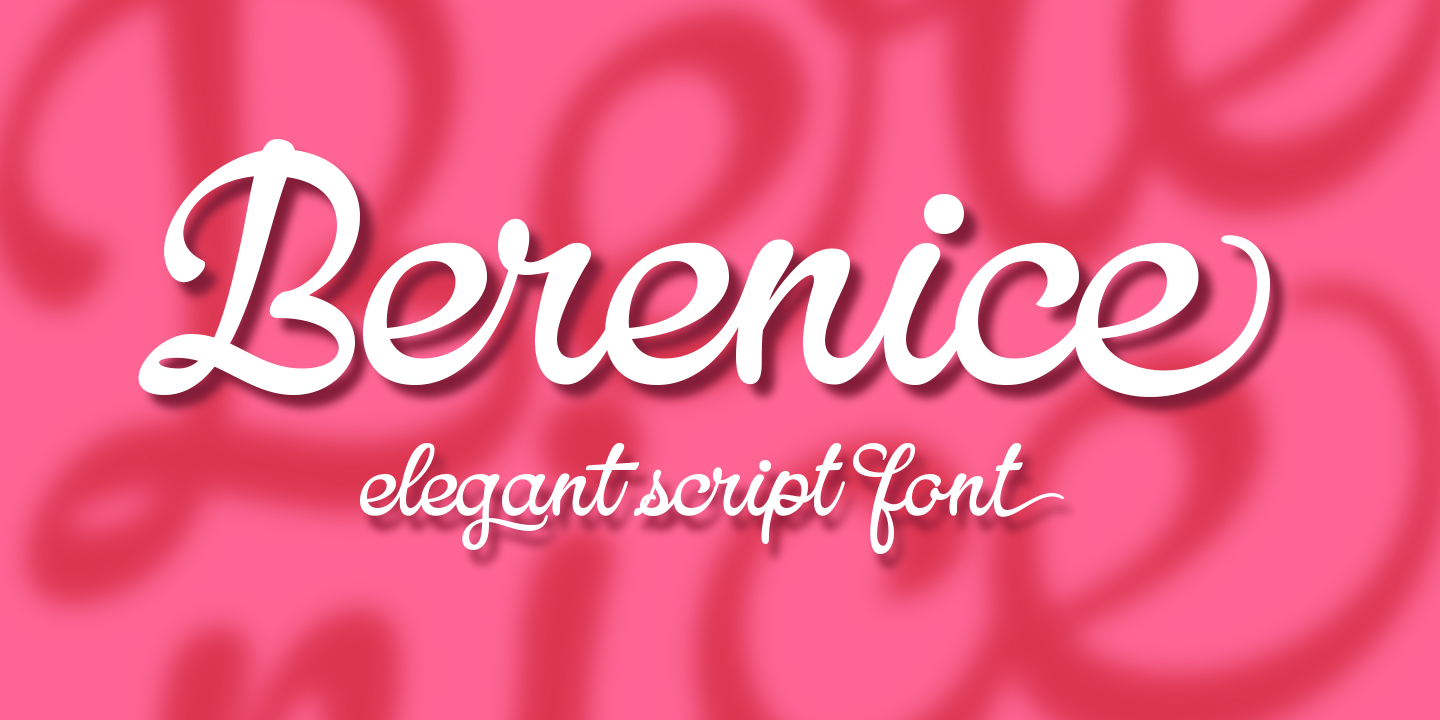
Berenice Font is perfect for elegant luxury fashion branding, sophisticated jewelry boutique signage, refined perfume advertising campaigns, premium beauty salon marketing, graceful wedding planning services, exclusive spa resort promotions, high-end cosmetics packaging, distinguished art gallery exhibitions, luxurious hotel branding materials, and prestigious cultural event invitations. Its sophisticated elegance character makes it ideal for projects requiring luxury refinement and feminine sophistication authenticity.
What makes Berenice Font exciting is its exquisite embodiment of timeless elegance and sophisticated femininity with refined letterforms and luxurious characteristics that capture the essence of haute couture sophistication and premium lifestyle excellence. The font features graceful proportions, elegant stroke details, and sophisticated character construction that create authentic luxury atmosphere and refined appeal. Its distinguished personality brings prestige and elegance to contemporary designs while maintaining the clarity essential for luxury communications and high-end presentations. The carefully crafted elegant elements ensure visual sophistication while preserving the distinctive character that embodies the essence of luxury refinement and feminine excellence.
Berenice Font comes in multiple luxurious variations including Light, Regular, Medium, Bold, and Elegant styles. Each family member maintains the distinctive sophisticated character while offering comprehensive flexibility for luxury typography and refined brand system development. The complete font family includes stylistic alternates, elegant flourishes, and luxury symbols that provide extensive tools for creating immersive sophisticated design experiences and authentic luxury brand storytelling.
Whether you're developing luxury brands, high-end fashion projects, or sophisticated lifestyle services, Berenice Font Free Download provides the refined elegance needed to communicate with discerning luxury audiences and sophisticated consumers who appreciate premium quality and feminine sophistication. The font's luxurious appeal resonates with fashion designers, luxury brand managers, and sophisticated lifestyle professionals seeking authentic luxury credibility and refined presentation. Its comprehensive character set includes luxury symbols and elegant marks, making it perfect for creating complete sophisticated brand systems and memorable luxury storytelling across diverse high-end applications and elegance-focused design projects that celebrate feminine sophistication and luxury excellence.